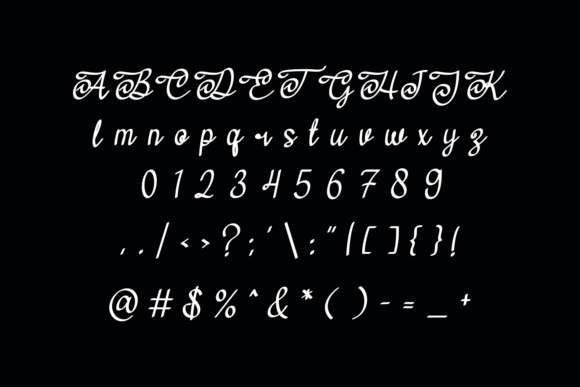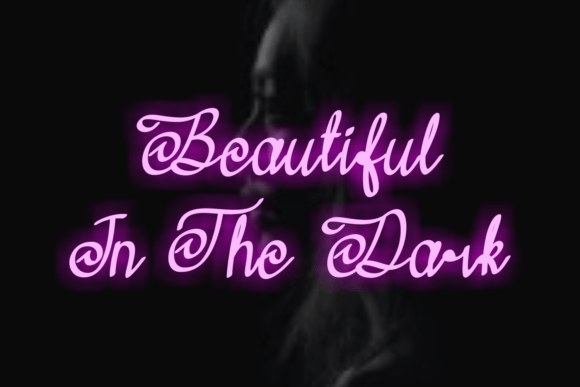
The Perfect Touch of Whimsy: Discovering the Antisy Font
Have you ever stared at a blank canvas, trying to conjure up the perfect design to capture your audience’s attention? It’s that moment of creative frustration that sparks a spark of inspiration, and for designers, it’s a thrill unlike any other. And what if we told you that the solution lies in the subtle yet striking Antisy Font?
This delicate handwritten font is more than just a pretty face – it’s a game-changer for designers looking to add a touch of elegance and sophistication to their work. With its thin, smooth vibe, the Antisy Font is perfect for any design that requires a dash of whimsy and personality. Whether you’re working on a branding project, creating a social media campaign, or designing a website, this font is sure to elevate your design to the next level.
Antisy Font Key Features
- Unique Characteristics: The Antisy Font features a unique blend of modern and vintage elements, making it ideal for designs that require a touch of sophistication and elegance.
Designer Review: Antisy Font
Overall, I found the Antisy font to be quite intriguing and versatile. ✨ One of the things that caught my attention was its wide range of styles and weights, which make it suitable for various design applications. The font’s modern and sleek aesthetic gives it a professional touch, making it perfect for corporate branding and marketing materials.
Another aspect that I appreciate about the Antisy font is its excellent legibility, even at small font sizes. ✨ This is especially useful for designing digital interfaces, where text is often displayed in a variety of contexts.
However, I did encounter some limitations while working with the Antisy font. ⚠️ For instance, some of the styles and weights feel a bit inconsistent, which can make it challenging to achieve a cohesive look across different design elements. Additionally, the font’s character set is not as extensive as some other popular fonts, which may limit its suitability for certain design projects.
Key Strengths and Weaknesses:
- ✨ Wide range of styles and weights
- ✨ Excellent legibility
- ⚠️ Inconsistent styles and weights
- ⚠️ Limited character set
In conclusion, the Antisy font is a solid choice for designers looking for a modern and professional font with a wide range of styles and weights. However, its limitations should be carefully considered before choosing it for a specific design project.
Antisy Font is a versatile and modern font that can be used in a variety of applications, including:
- Graphic design projects
- Print materials, such as business cards and brochures
Some tips for getting the most out of Antisy Font include:
- Using it in combination with other modern fonts for a clean and sleek look.
- Experimenting with different font sizes and styles to create visual interest.
- Using it for headings and titles to create a clear hierarchy of information
Alternatives to Antisy Font for Designers
Montserrat is a sans-serif font designed by Julieta Ulanovsky. It is a modern, clean font that is perfect for digital design, particularly for titles and headings. Montserrat is a great alternative to Antisy Font as it offers a similar aesthetic but with a more geometric feel.
Comparison: Montserrat is more geometric and modern than Antisy Font, making it ideal for digital design and titles. Antisy Font, on the other hand, is more versatile and can be used for both digital and print design.
Abril Fatface is a sans-serif font designed by Pablo Parra Cuartero. It is a clean and modern font that is perfect for digital design, particularly for titles and headings. Abril Fatface is a great alternative to Antisy Font as it offers a similar aesthetic but with a more subtle feel.
Can I customize the Antisy Font to fit my design needs?
While the Antisy Font is designed to be highly customizable, some modifications may require advanced technical knowledge. You can adjust font weight, style, and size using standard design software. However, for more complex customizations, such as creating custom font variants or modifying the font’s underlying design, you may need to use font editing software or consult with a font expert.